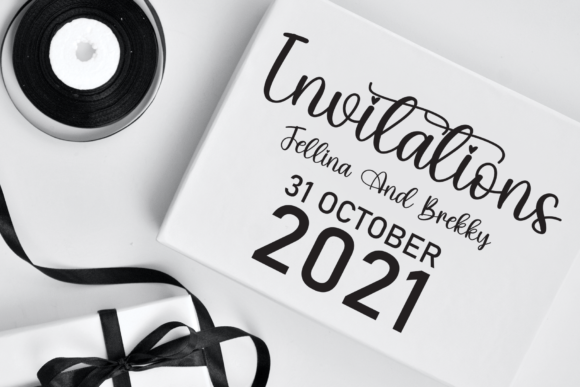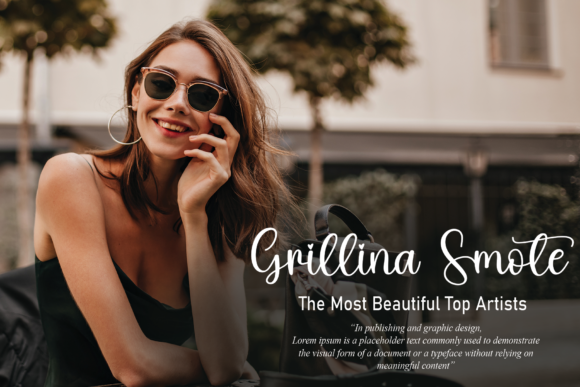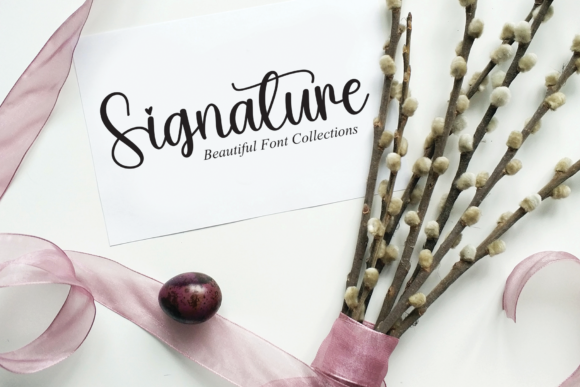
Introduction to Love Lony Font
Love Lony is a sweet, whimsical, flowing and thin script font.
Featuring characters that dance along the baseline, this font will add a luxury spark to any design project that you wish to create .
Key Features of Love Lony Font
Why Choose Love Lony Font?
Love Lony Font offers exceptional quality and versatility, making it a valuable addition to your design toolkit. Whether you’re creating for personal projects or commercial use, Love Lony Font delivers professional results.